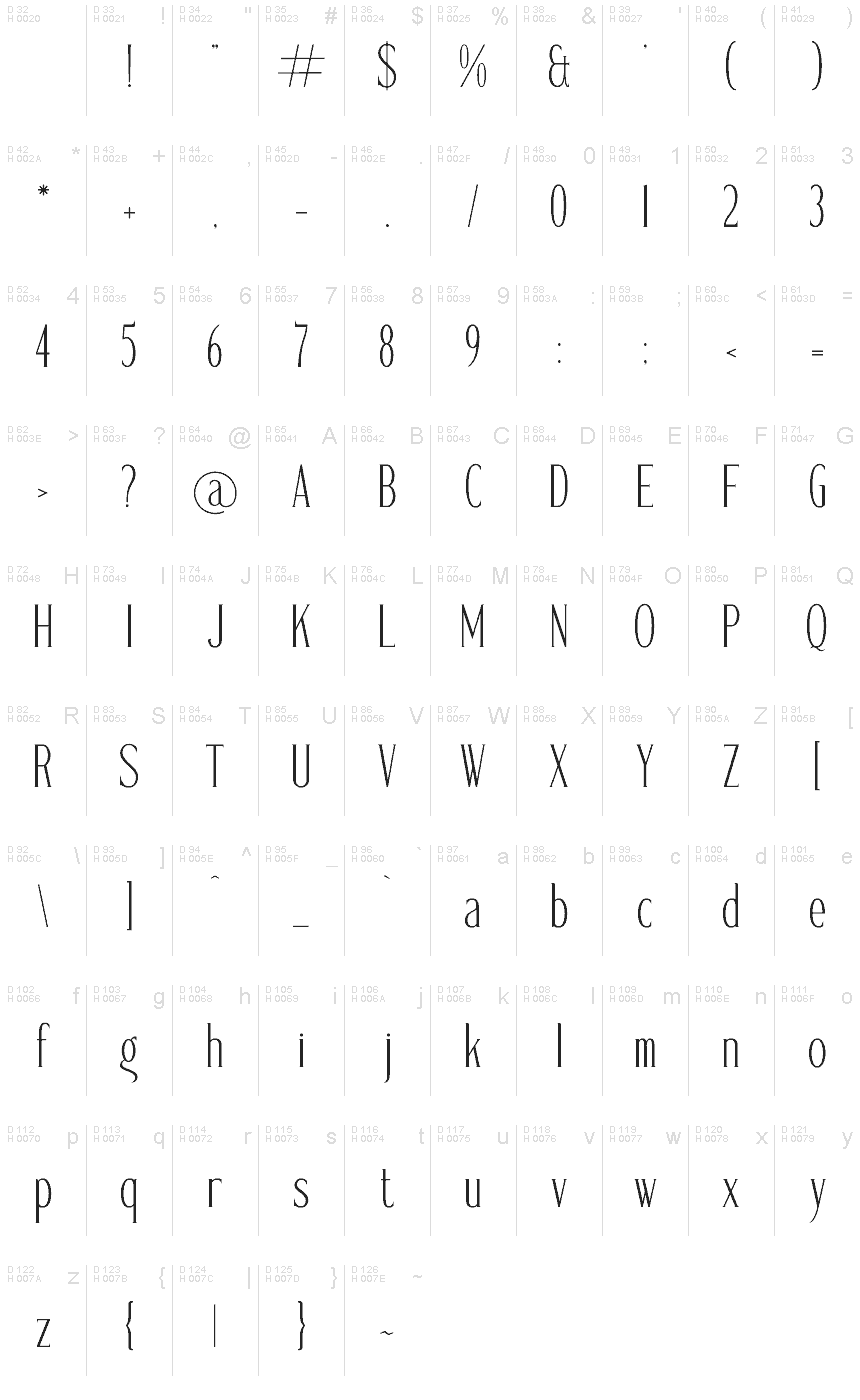
Gadnesh Meteora
Gadnesh Meteora is a beautiful display serif font that features a striking modern geometric aesthetic, perfect for a variety of commercial projects.
Its original style was inspired by traditional printing devices and by the geometric art movement as well. Because of its clean lines and graceful curves, it appears quite minimal at first glance, but it also has a very sophisticated, sophisticated and authoritative personality.
So if you’re looking for a professional font that is both modern and traditional, then look no further.